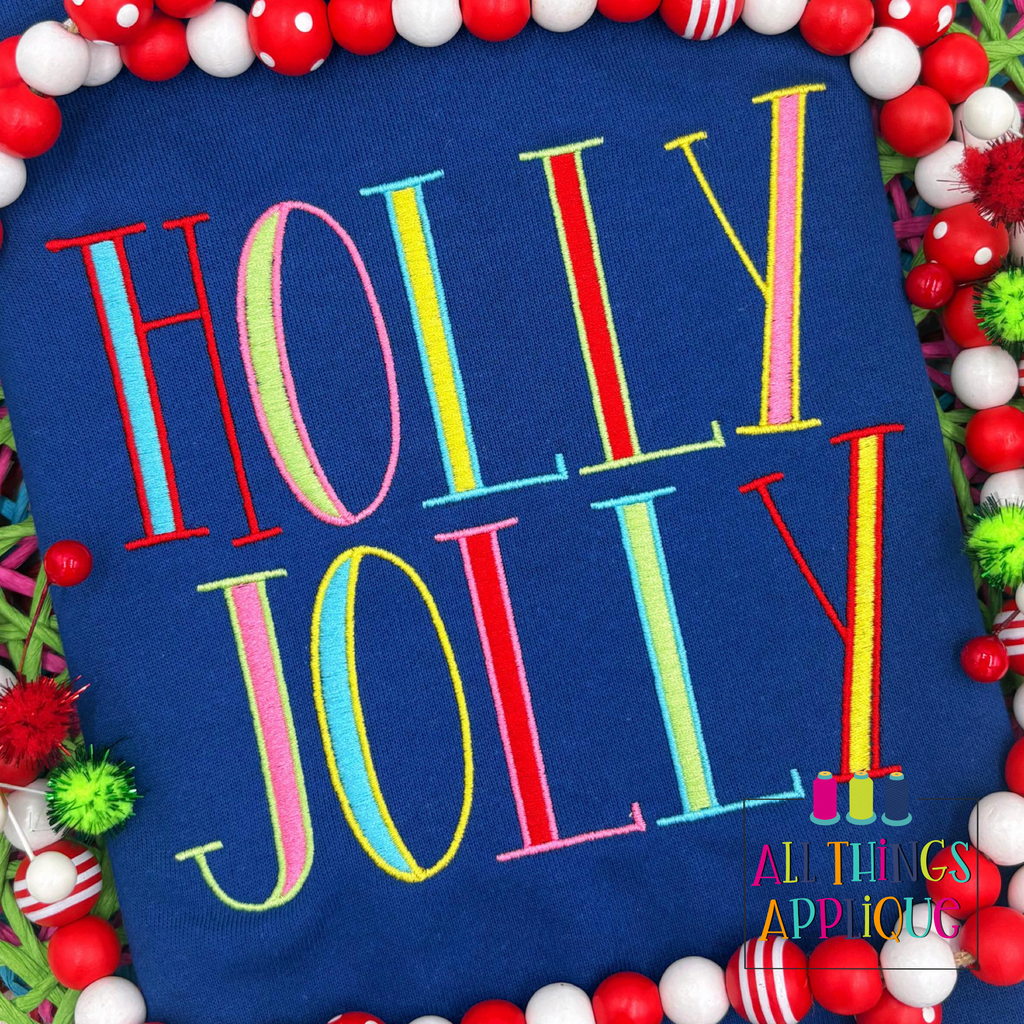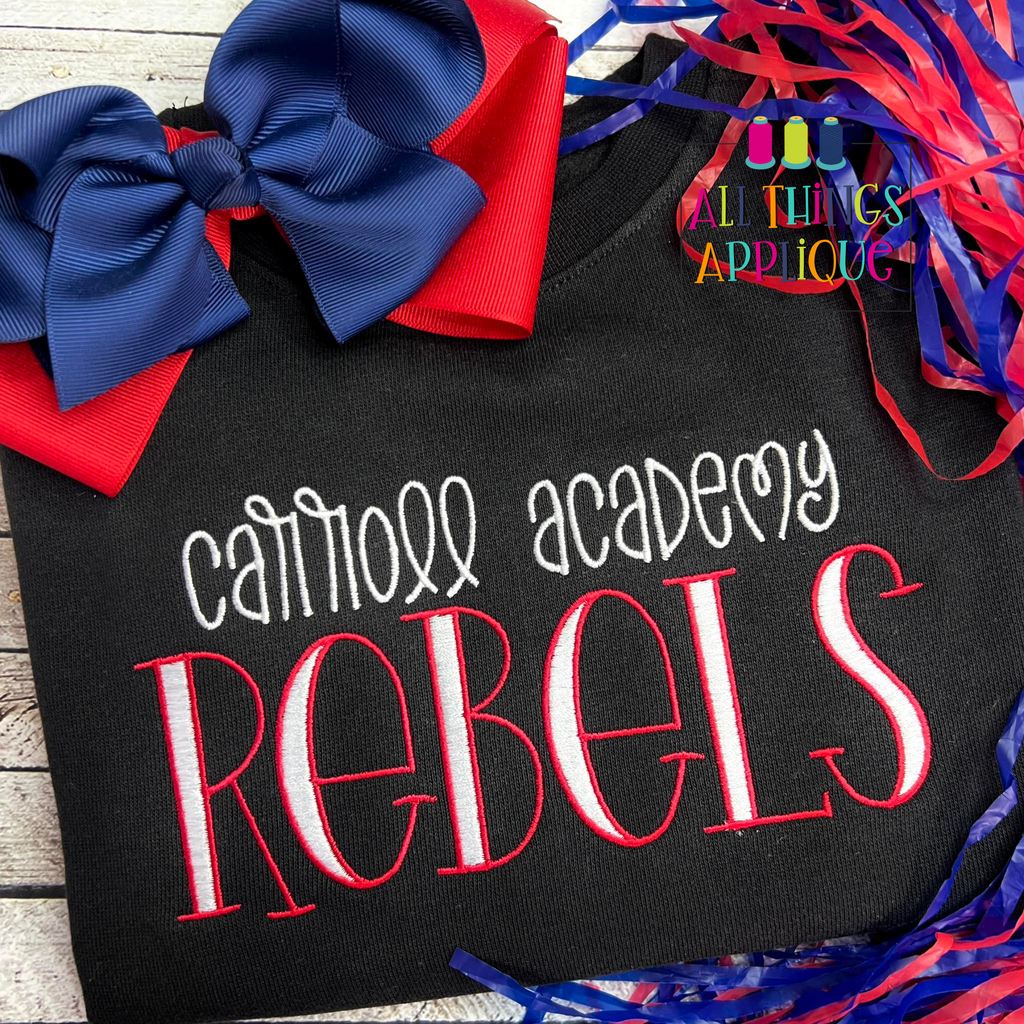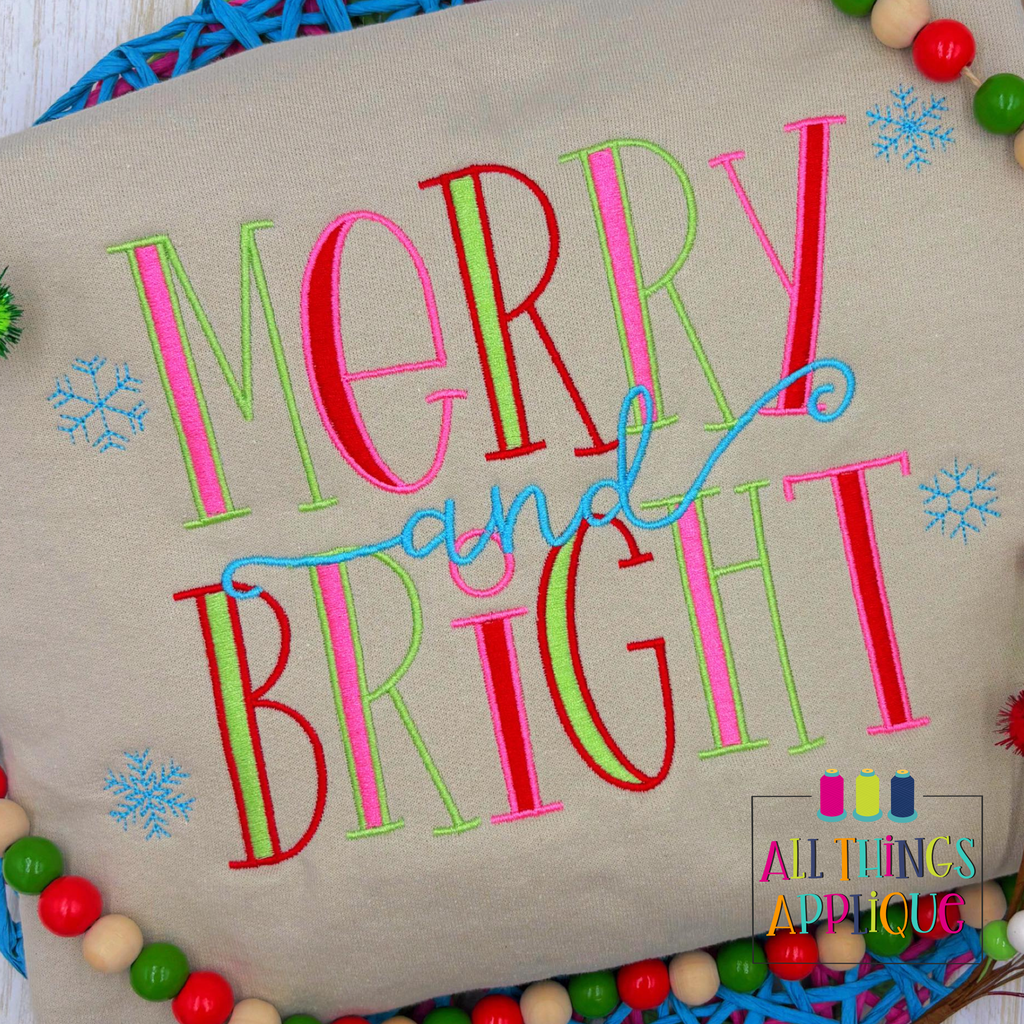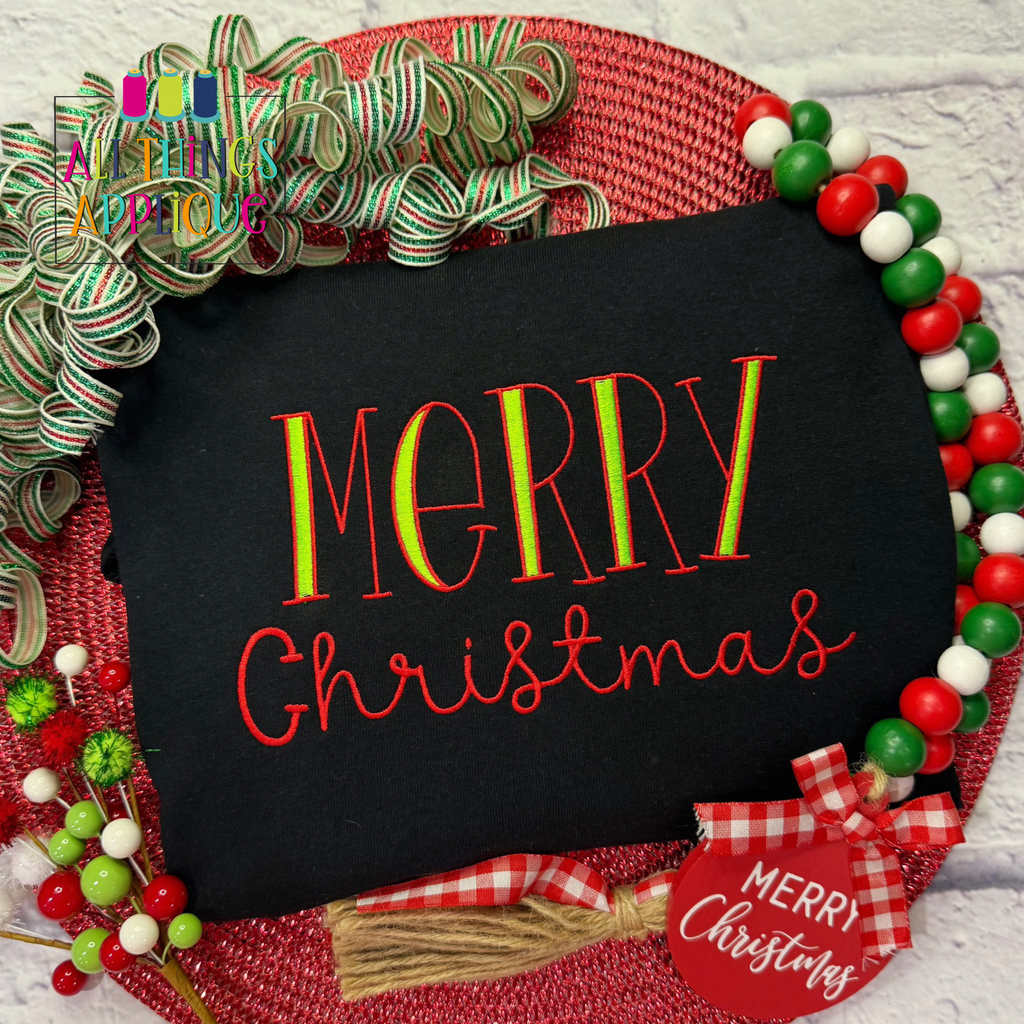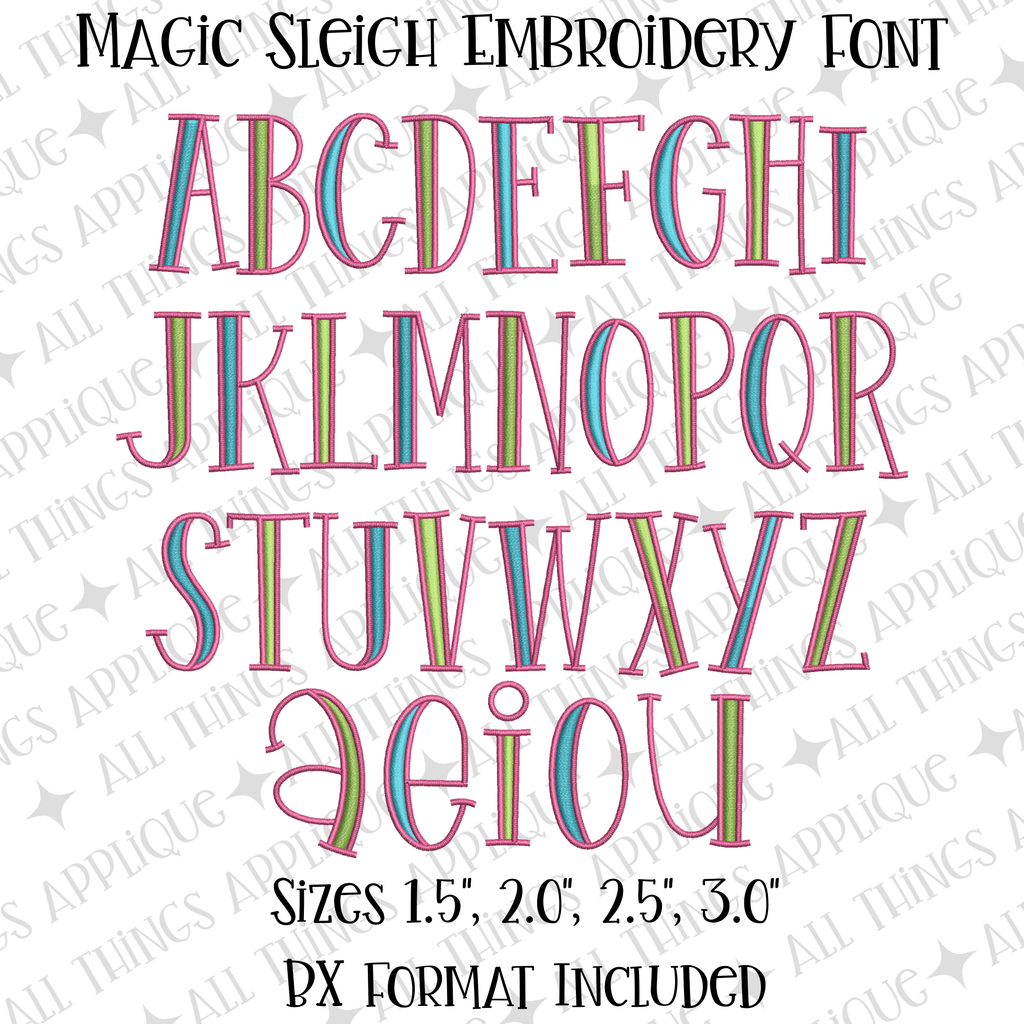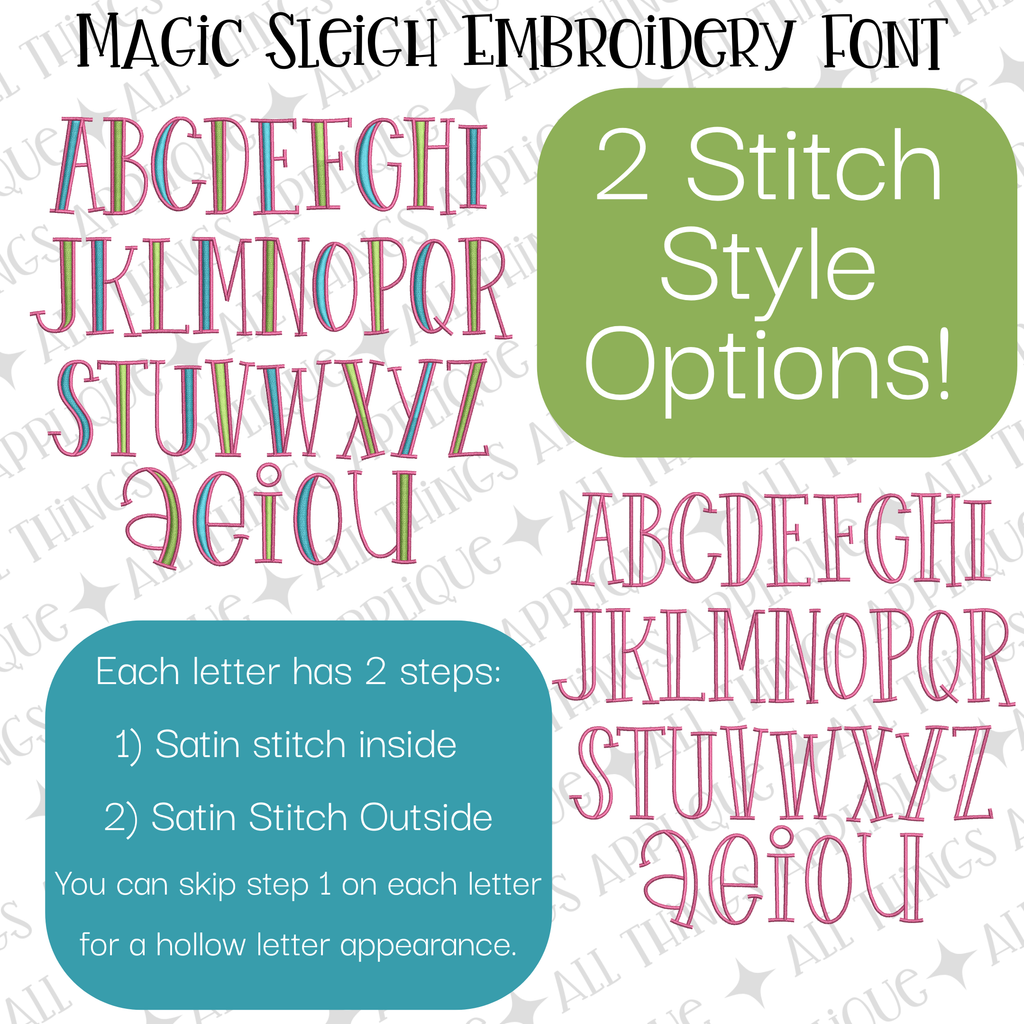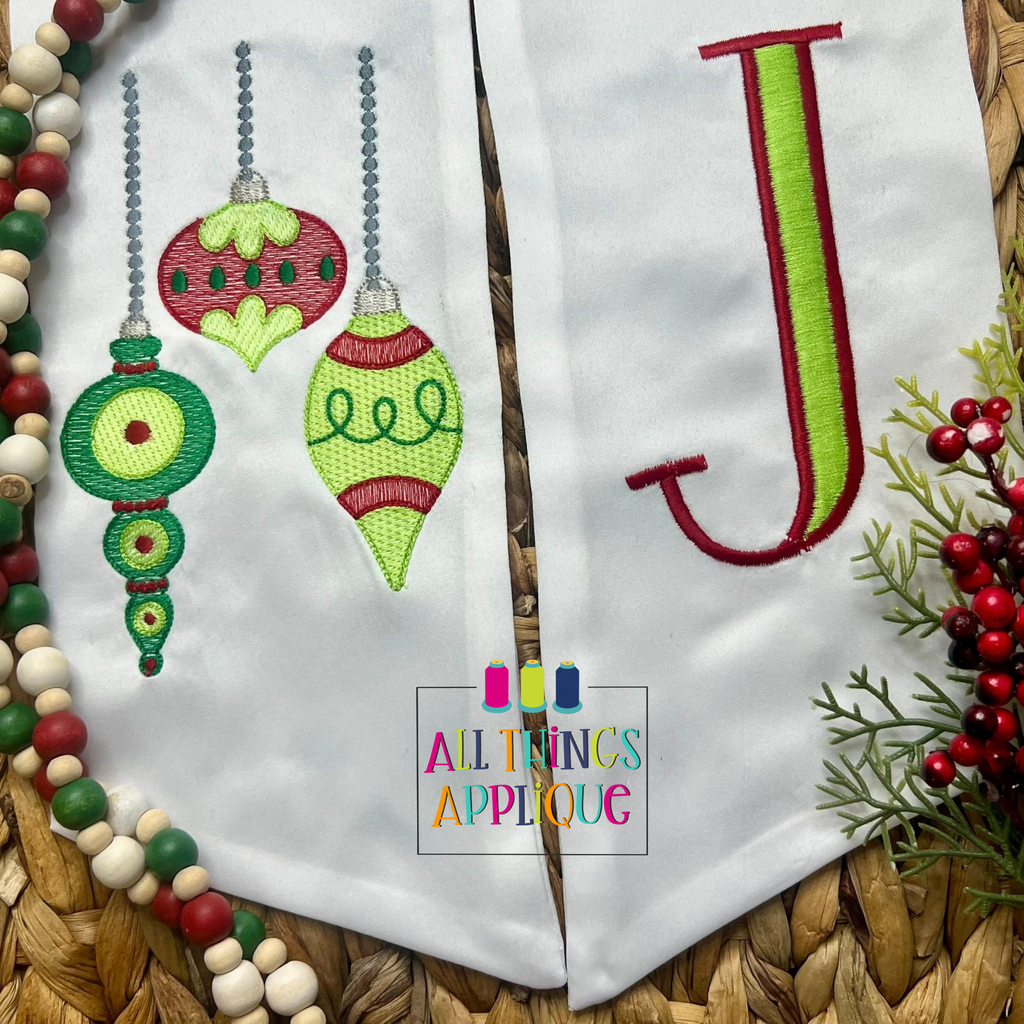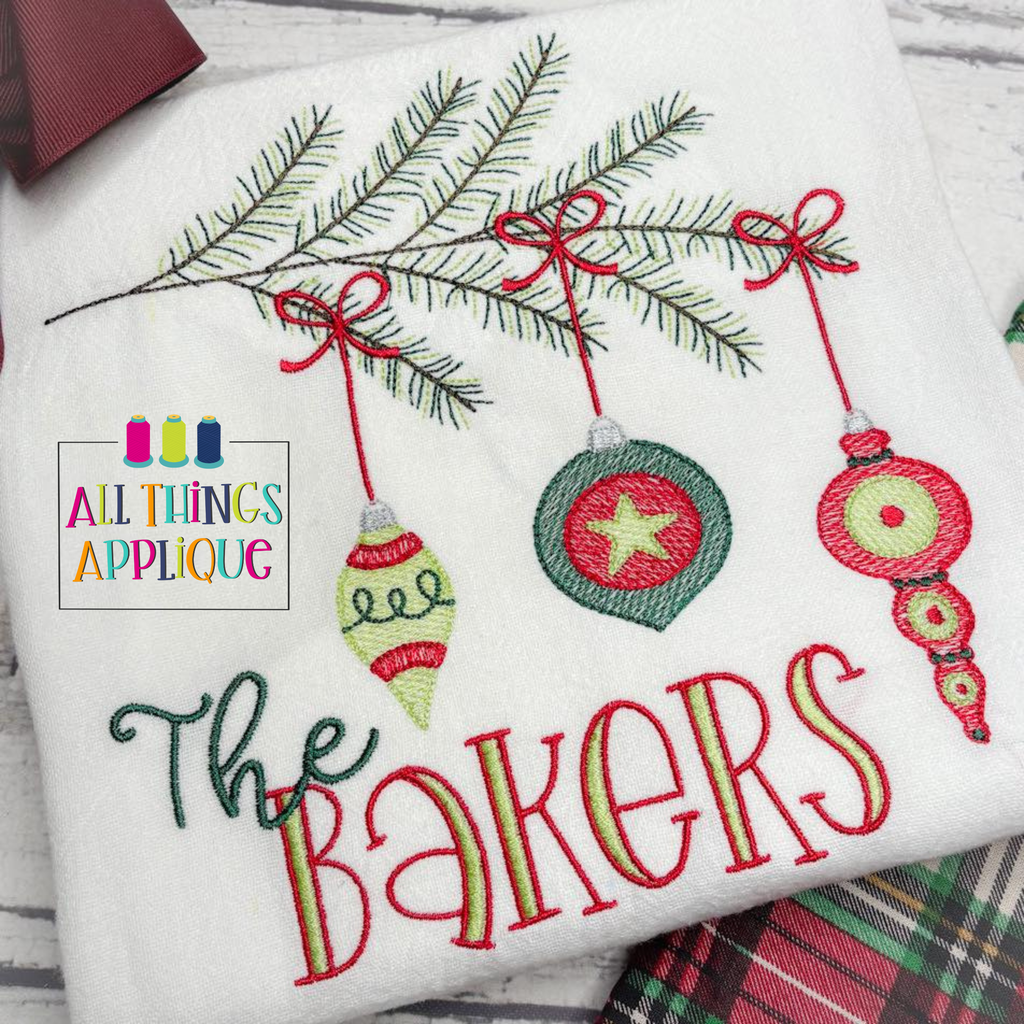
- Magic Sleigh Embroidery Font
About the Magic Sleigh Embroidery Font
Bring holiday magic to your projects with this enchanting embroidery font! Perfect for festive designs, Magic Sleigh features a charming two-color style that adds dimension and visual interest. Available in four sizes to suit any project scale, this font offers creative flexibility—stitch it with the delicate inside satin fill for a polished look, or skip it for a bold outline effect.